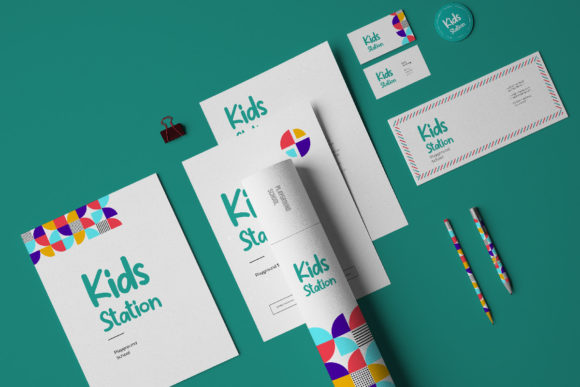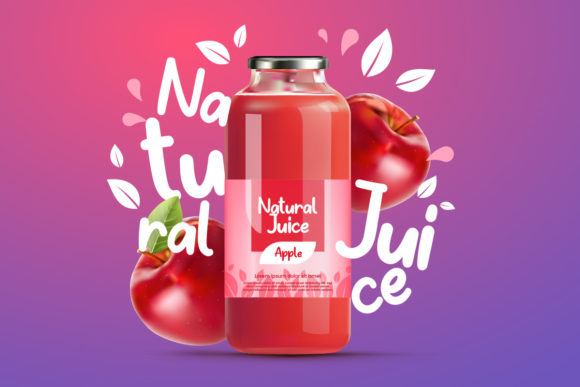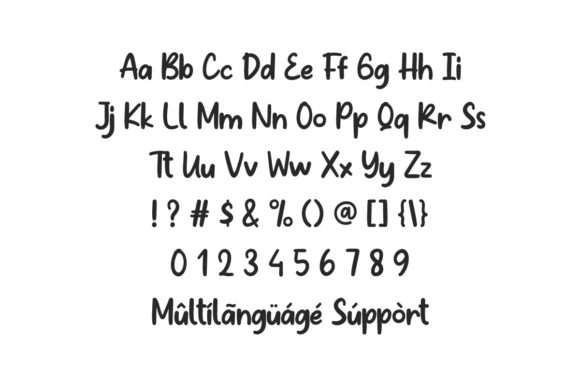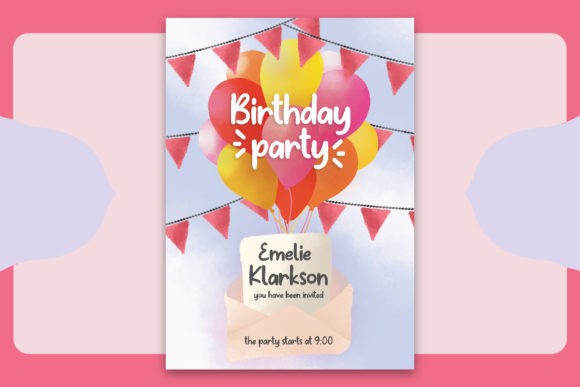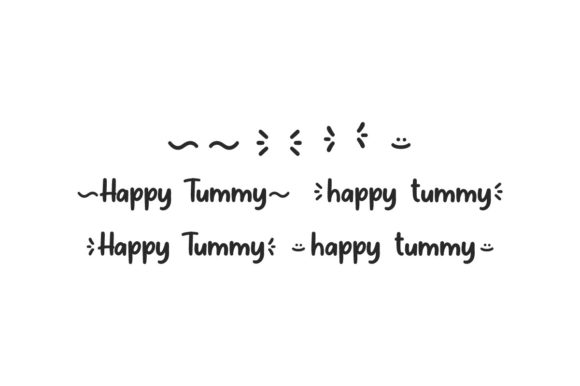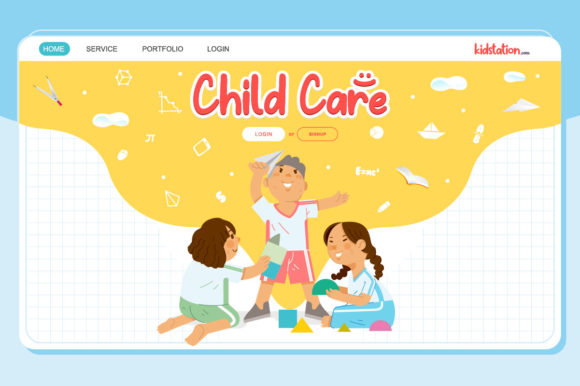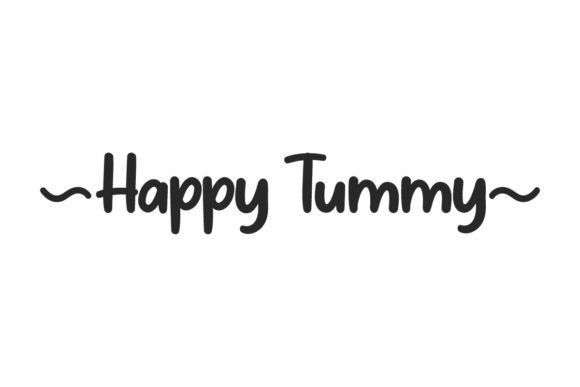
Introducing Happy Tummy Font: The Playful and Whimsical Typeface for Your Creative Projects
Are you a designer, crafty enthusiast, or simply someone looking for a fun and playful font to add a personal touch to your projects? Look no further than Happy Tummy Font! This delightful handwritten font was inspired by a kids’ menu from a fast-food restaurant, and its carefree and cartoonish style makes it perfect for a wide range of creative applications.
The Inspiration Behind Happy Tummy Font
The Happy Tummy Font was born out of a desire to capture the playful and imaginative spirit of a kids’ menu. The font’s creator was inspired by the colorful and whimsical illustrations often found on these menus, and sought to translate that sense of fun and playfulness into a typeface. The result is a font that is both nostalgic and modern, with a unique charm that is sure to delight audiences of all ages.
What Makes Happy Tummy Font So Versatile?
One of the things that sets Happy Tummy Font apart from other typefaces is its incredible versatility. Whether you’re working on a branding project, designing a logo, or creating a wedding invitation, this font is sure to add a touch of personality and whimsy to your work. Its playful and cartoonish style makes it perfect for use on:
- Stationery and letterheads
- Wedding invitations and party decor
- Signage and flyers
- Video titles and animations
- Houseware and product design
- Cosmetics and packaging
- Events and festivals
- Art and illustration projects
- Cartoons and comics
- Cafés and restaurant menus
- Movies and film titles
- School projects and educational materials
Why Designers and Crafters Love Happy Tummy Font
Designers and crafters alike will love Happy Tummy Font for its unique combination of playfulness and legibility. The font’s handwritten style gives it a personal and approachable feel, making it perfect for projects where you want to add a touch of warmth and personality. At the same time, its clear and readable design ensures that it will be easy to use in a wide range of applications, from large-scale signage to small-scale product labels.
Tips for Using Happy Tummy Font in Your Projects
Here are a few tips for getting the most out of Happy Tummy Font in your projects:
- Use it to add a playful touch to your branding or logo design
- Pair it with bold colors and illustrations to create eye-catching signage and flyers
- Mix it with other fonts to create a unique and personalized look
- Use it to add a touch of whimsy to your wedding invitations or party decor
- Experiment with different sizes and styles to create visual interest and hierarchy